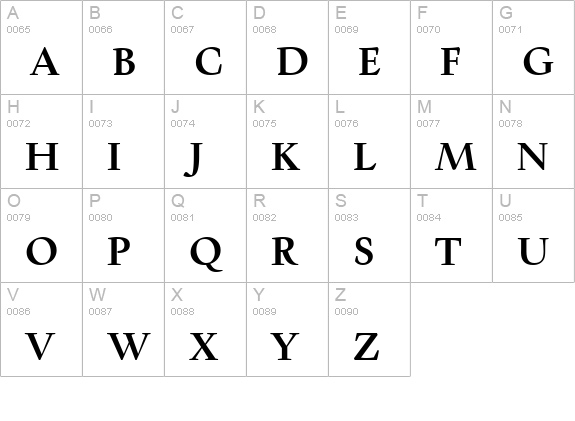
Kennedy Bold GD is a strong, high-contrast variant in the Kennedy typeface family \xE2\x80\x94 well suited to headlines, attention-grabbing titles, and strong calls-to-action.
Kennedy Bold GD is a striking and bold font that exudes confidence and modernity. Its strong and impactful letterforms make it perfect for headlines, titles, and any design project that demands attention. With its unique and eye-catching look, Kennedy Bold GD is sure to make a lasting impression. This font is not only visually appealing but also extremely versatile. It can be used in a wide range of design applications, from branding and advertising to packaging and website design. No matter the project, Kennedy Bold GD will add a touch of elegance and sophistication. One of the best things about Kennedy Bold GD is that it is free. Yes, you read that right - this stunning font can be freely downloaded at FontsMarket.com. This means that you can enhance your designs without spending a dime. It's the perfect opportunity to add a professional and stylish touch to your work, without breaking the bank. So why wait? Take advantage of this amazing offer and download Kennedy Bold GD today. Elevate your designs with its bold and captivating presence, and let your creativity shine. Whether you're a professional designer or just starting out, this font is a must-have in your collection. Don't miss out on the chance to make a statement with Kennedy Bold GD - get it now and unleash your design potential!